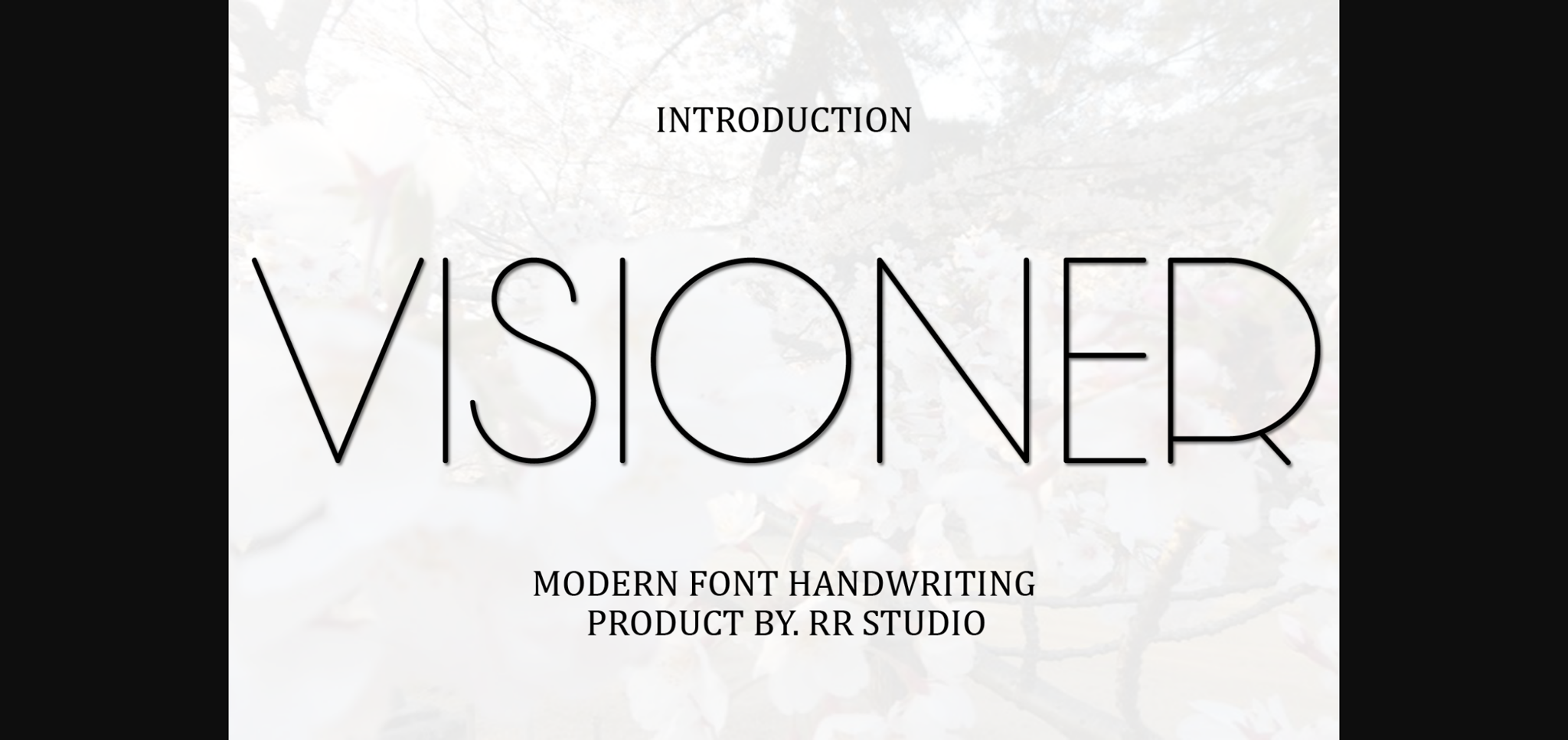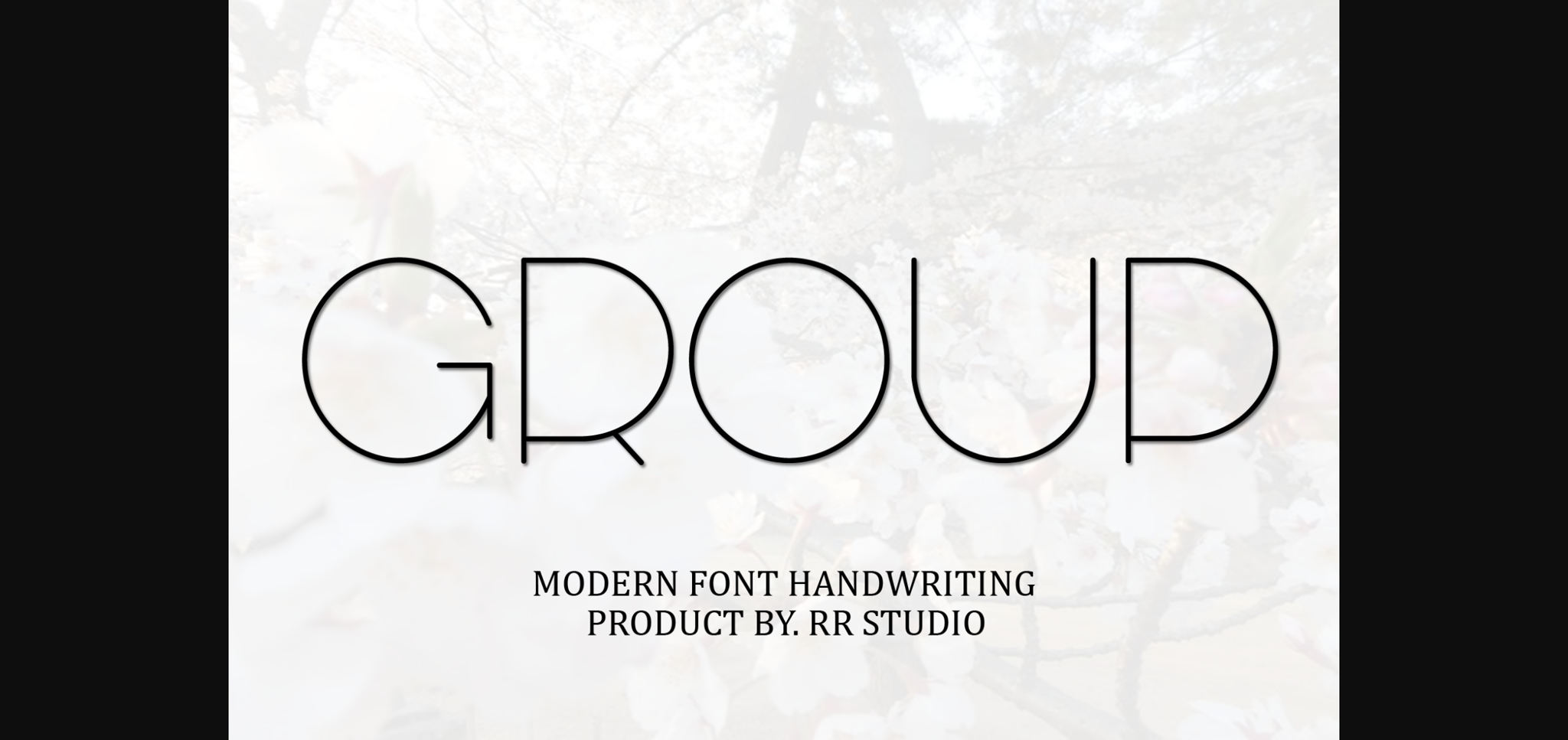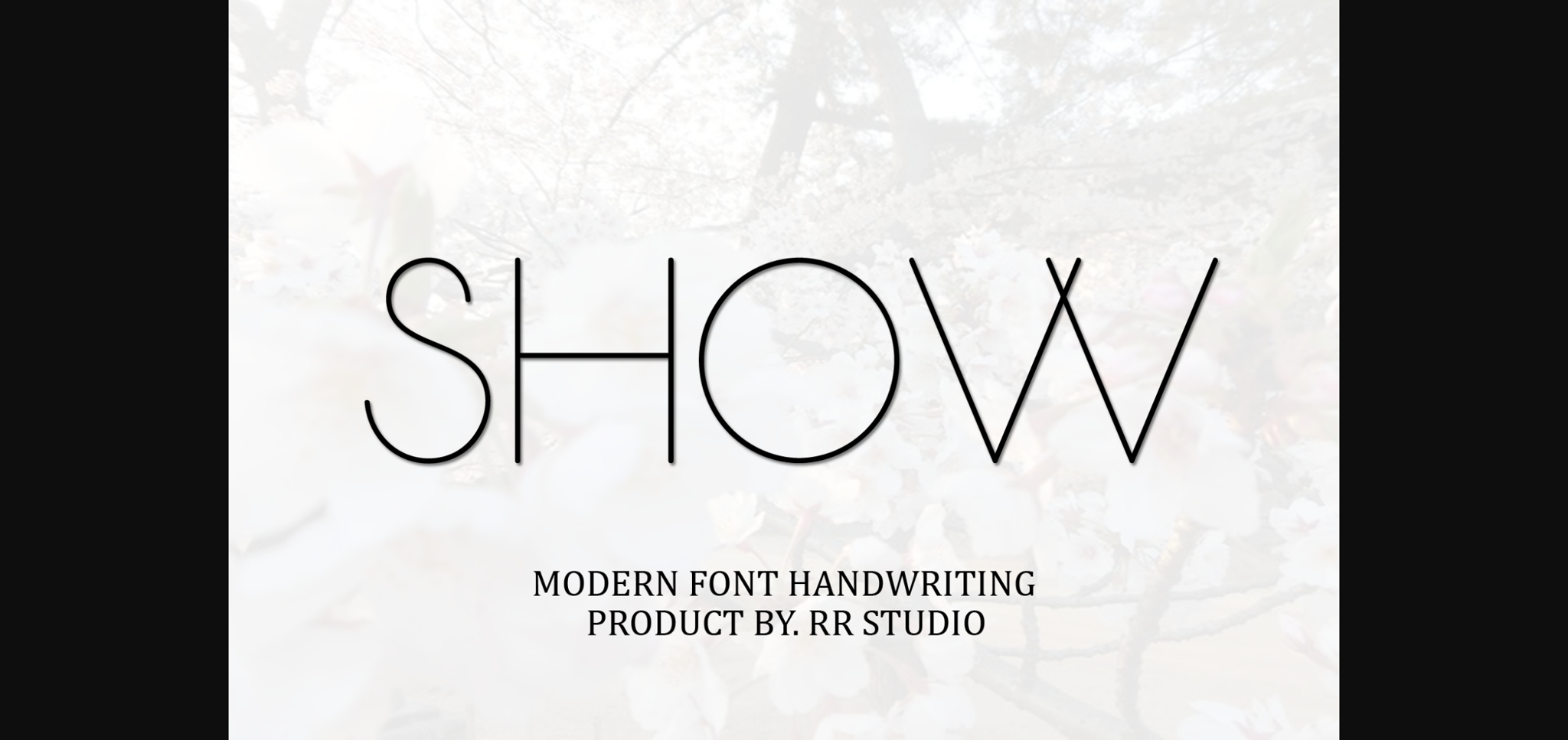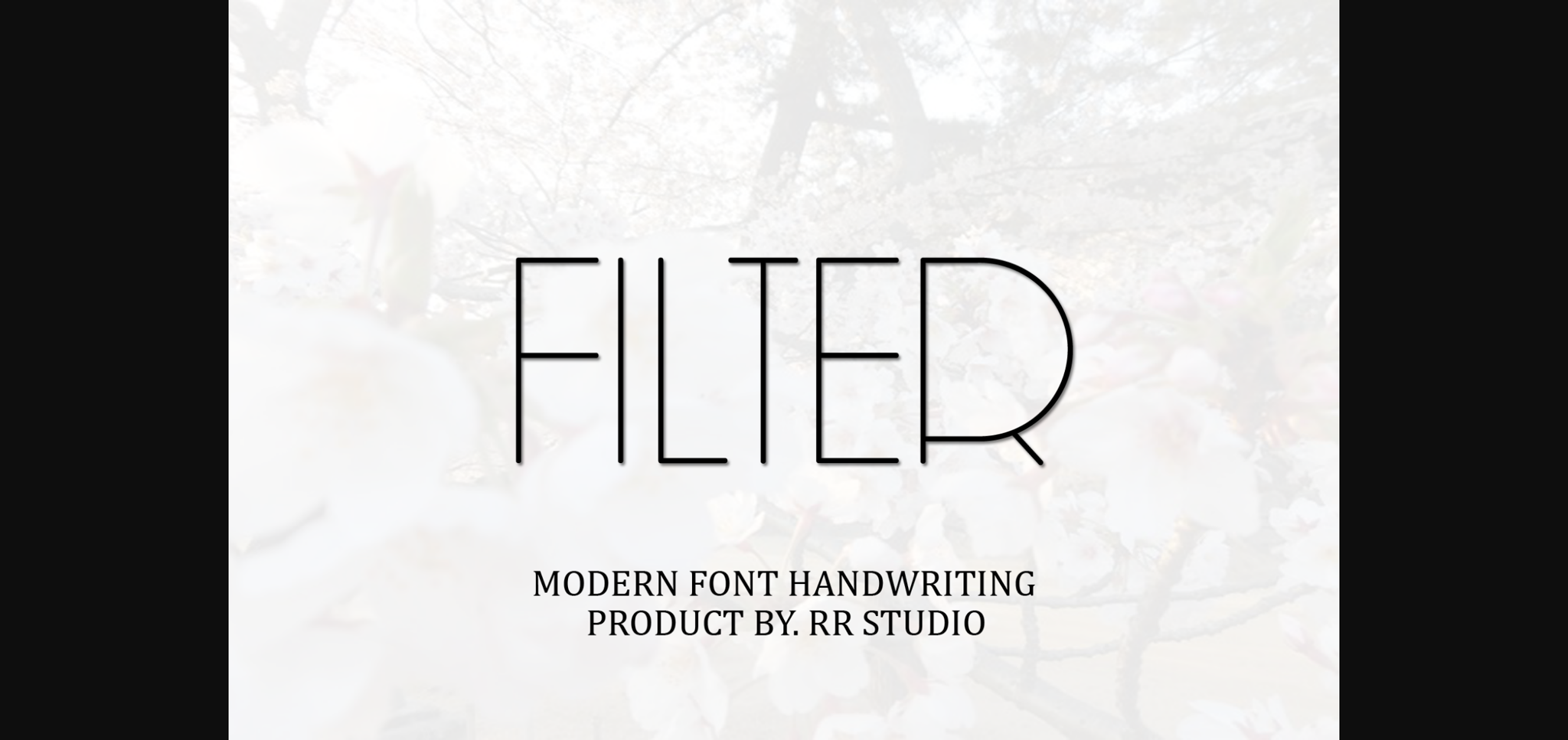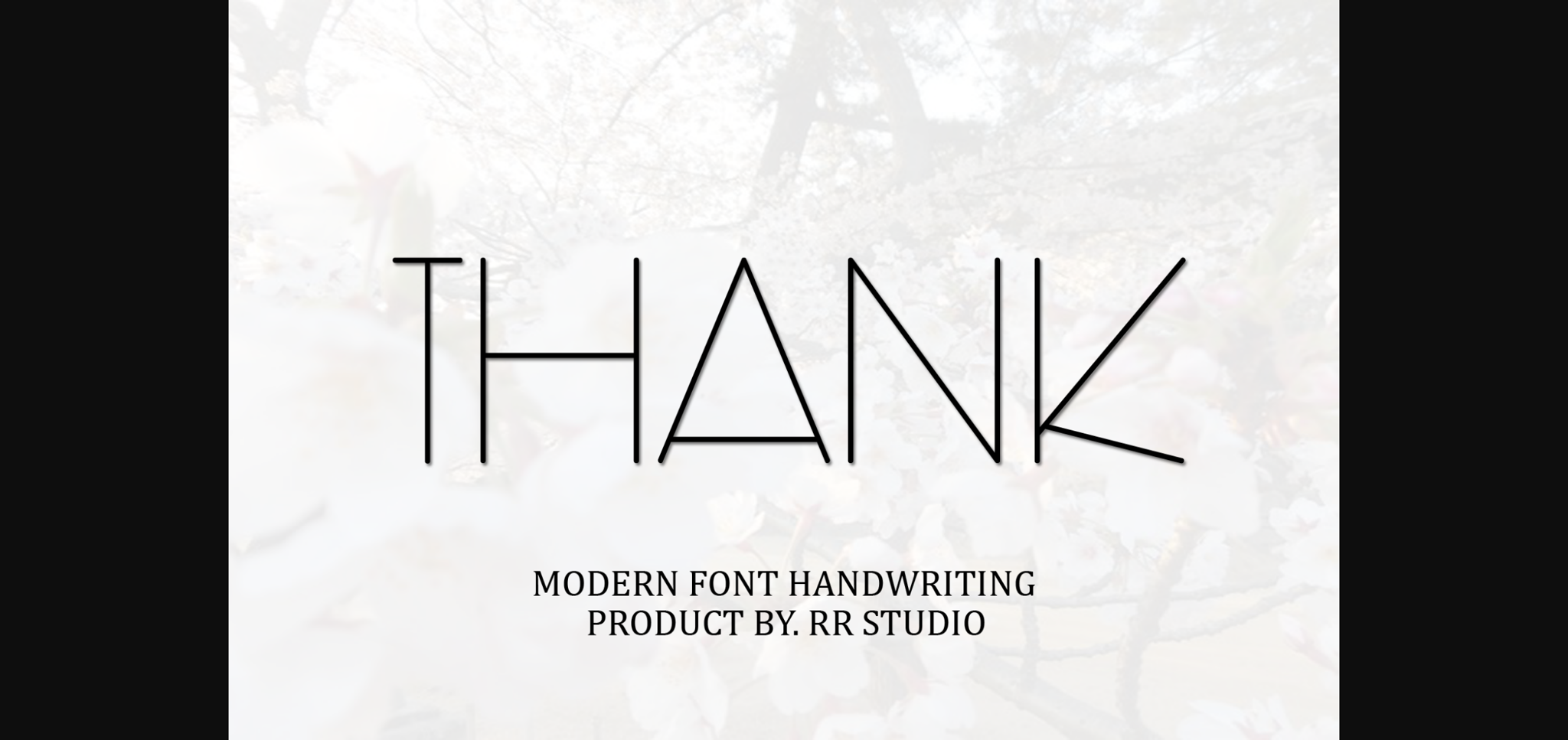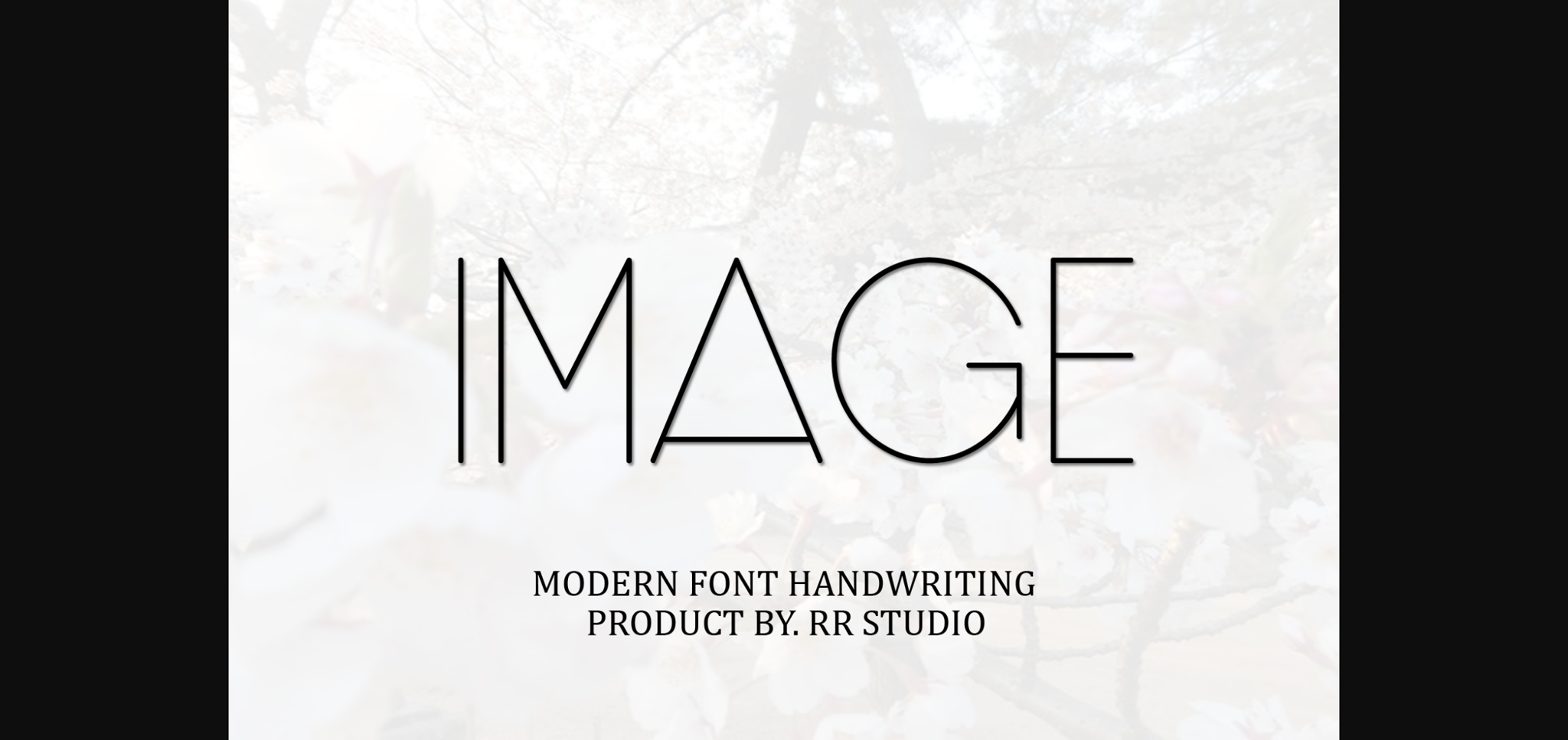
HomeSans Serif FontsVisioner Font Sans Serif Fonts Visioner Font FacebookXPinterestWhatsApp 1 of 8 ... Visioner Font Poster 2... Visioner Font Poster 3... Visioner Font Poster 4... Visioner Font Poster 5... Visioner Font Poster 6... Visioner Font Poster 7... Visioner Font Poster 8... About Visioner Font Visioner is a stylish and incredibly elegant sans serif font. It looks stunning on wedding invitations, thank you cards, quotes, greeting cards, logos, business cards and every other design which needs a handwritten touch. DOWNLOAD NOW People also explored PN Pipalou Font Pride Font PAG Brigade Rastalia Font Already Font StringLabs Font Plamiya Font Datani Latana Font Rille Battin Font 322 0 TagsVisioner Font Previous articleMinihouse FontNext articleQuadran Font LEAVE A REPLY Cancel reply Comment: Please enter your comment! Name:* Please enter your name here Email:* You have entered an incorrect email address! Please enter your email address here Website: Save my name, email, and website in this browser for the next time I comment. Personal Use Free Zephan Personal Use Free Read more about this font BD RatterBit Personal Use Free Read more about this font Yesstea Personal Use Free Read more about this font Nugo Sans Personal Use Free Read more about this font BLOG Using Fonts in Digital Marketing: Tips to Strengthen Your Brand Identity In the realm of digital marketing, every visual element plays a crucial role in shaping a brand's identity, and fonts are no exception. The... Free Fonts Risk: Why Free Fonts Can Be Dangerous for Designers To increase your work productivity, choose the most readable fonts. Exploring Font Trends